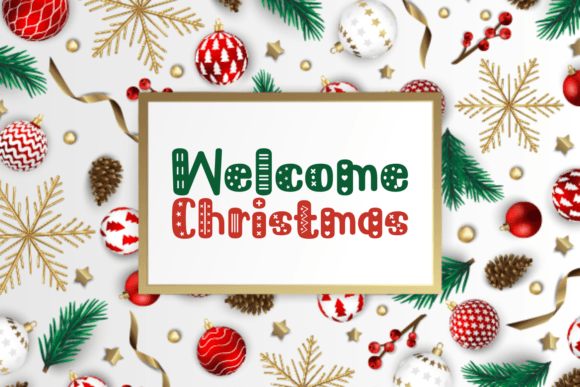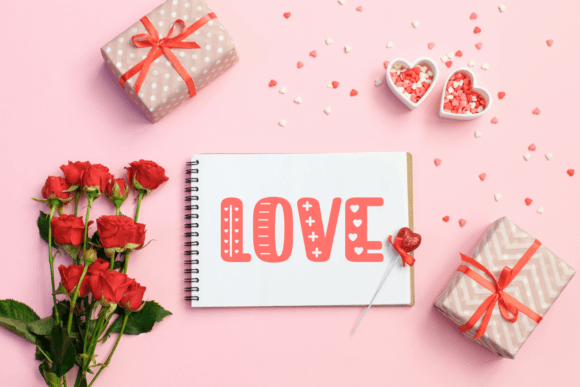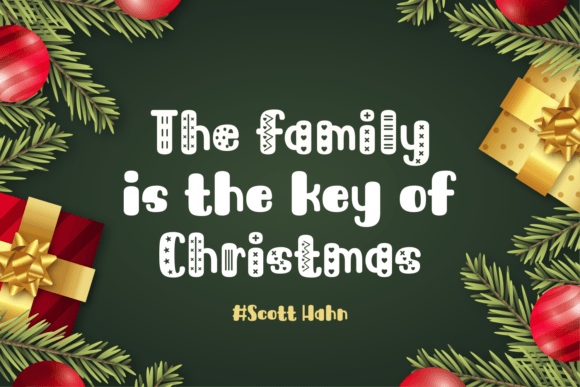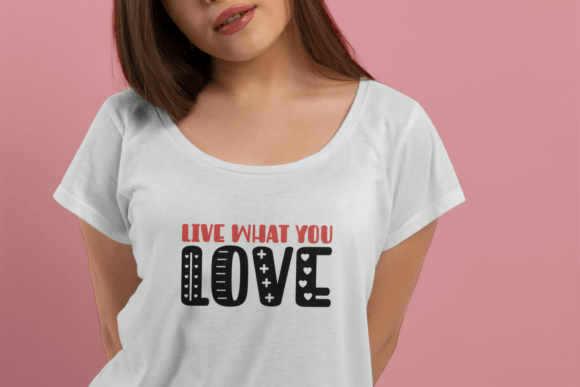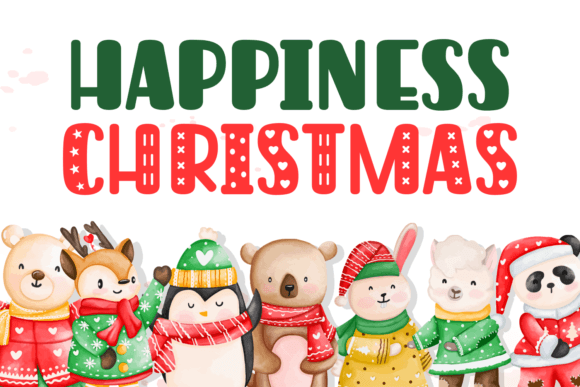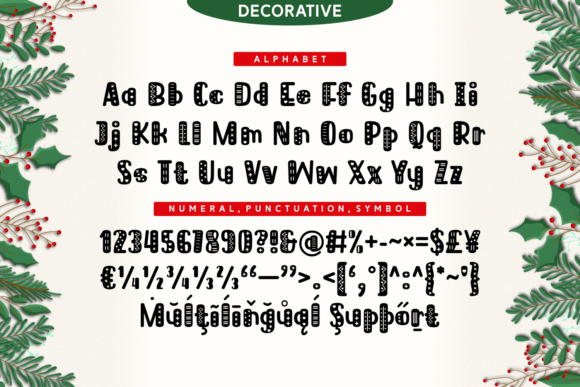
Introduction to Greetings Christmas Font
As the holiday season approaches, many designers start brainstorming ideas for their next creative project. Whether it’s a festive greeting card, a holiday-themed website, or a social media post, the right font can make all the difference. For those looking to add a touch of whimsy and cheer to their designs, the Greetings Christmas Font is an ideal choice.
This charming font is a staple for designers who want to create celebratory designs that capture the essence of the holiday season. With its chubby characters adorned with cute doodle elements like stars, hearts, stripes, and dots, the Greetings Christmas Font is a must-have for any design resource library.
Key Features of Greetings Christmas Font
- High-quality, festive font perfect for creative projects and design resources
- Unique, hand-drawn style with transparent background, allowing for versatility and flexibility
- Includes a wide range of characters, including uppercase and lowercase letters, numbers, and punctuation
- Perfect for use in greeting cards, posters, social media graphics, and other creative projects
Honest Review: Greetings Christmas Font
As a designer, I’m always on the lookout for high-quality design resources to enhance my creative projects. The Greetings Christmas Font is one such resource that caught my attention, and I’m excited to share my honest review with you.
What works well about this font is its festive and playful vibe, perfect for holiday-themed designs. The characters are well-designed, and the font is easy to read even at smaller sizes. The transparent background option allows for seamless integration with any design element, making it a great addition to your design toolbox.
Here are some of the key features that stood out to me:
- High-quality design with crisp characters
- Transparent background option for easy integration
- Limited font sizes, which may not be suitable for larger text
- No bold or italic options, which can be a drawback for certain design applications
Overall, I’m impressed with the Greetings Christmas Font’s potential to add a touch of holiday cheer to your designs. While it may have some limitations, it’s a great free resource for designers looking to add a bit of festive flair to their creative projects.
The Greetings Christmas Font is perfect for a variety of creative projects, including holiday cards, gift tags, and social media graphics. It’s also a great resource for designers who want to add a festive touch to their branding and marketing materials.